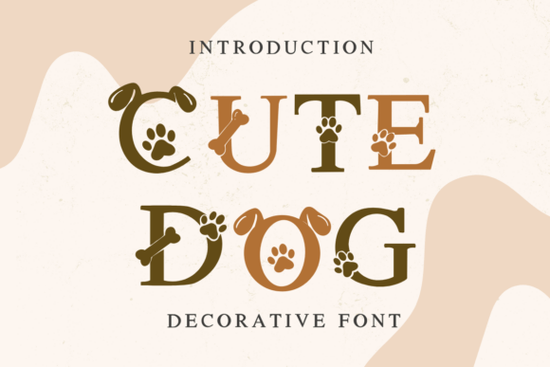
If you’re looking for a font that feels like a warm hug from your favorite pup, Cute Dog Font might be exactly what your next project needs. Designed with pet lovers and kid-focused creators in mind, this decorative typeface weaves playful dog-themed details like tiny bones, paw prints, and floppy ears right into the letters. It’s not just another font; it’s a little burst of joy that works especially well on birthday invites, pet boutique packaging, toddler tees, or even custom greeting cards for fellow dog enthusiasts.
What kinds of projects work best with Cute Dog Font?
This font shines when used in designs meant to feel friendly, lighthearted, or full of personality. Think:
- Birthday party invites for kids (or dog-themed adult parties too!)
- Pet store labels, tags, or social media graphics
- Custom apparel for daycares, dog walkers, or animal shelters
- Children’s book titles or classroom decor
- Greeting cards for dog moms, rescue volunteers, or new puppy owners
It’s not meant for formal documents or corporate reports but if your goal is to spark a smile or add charm, it’s perfect. You might also enjoy pairing it with other themed fonts like Beach Life for summer pet events or Dinosaur Font if you’re designing for kids who love both pups and prehistoric pals.
Is this font easy to use for beginners?
The characters are clean and legible at medium to large sizes, though we’d recommend avoiding very small text those adorable paw details can get lost if scaled down too far. For crafters working with cutting machines, test a sample first to make sure fine lines cut cleanly on your chosen material.
How does it compare to other playful fonts?
While fonts like Adaline offer elegant script styles, Cute Dog leans fully into whimsy. It doesn’t try to be fancy it tries to be fun. That makes it stand out in a sea of overly polished or minimalist typefaces. If your brand or project thrives on warmth, humor, or childlike wonder, this font brings something unique to the table.
It also pairs surprisingly well with simple sans-serifs. Try setting headlines in Cute Dog and body text in something neutral like Arial or Montserrat. The contrast helps keep things readable while letting the playful elements pop where they matter most.
Any tips for getting the most out of this font?
Here are a few practical ideas:
- Use color wisely. Bright primary colors or soft pastels enhance the playful vibe. Avoid dark, heavy backgrounds that might swallow up the delicate details.
- Add texture. Pairing the font with watercolor backgrounds, kraft paper, or doodle-style illustrations can amplify its handmade, cozy feel.
- Don’t overdo it. One or two words in Cute Dog Font often have more impact than entire paragraphs. Let it shine as a headline or accent.
- Test print or cut samples. Especially if you’re using it on physical products, make sure those tiny paws and bones translate well on your chosen medium.
Fonts like this aren’t just tools they’re little sparks of personality that help your work connect emotionally. Whether you’re making something for your own kids, your Etsy shop, or your local dog rescue’s fundraiser, Cute Dog Font helps you say it with a wagging tail.